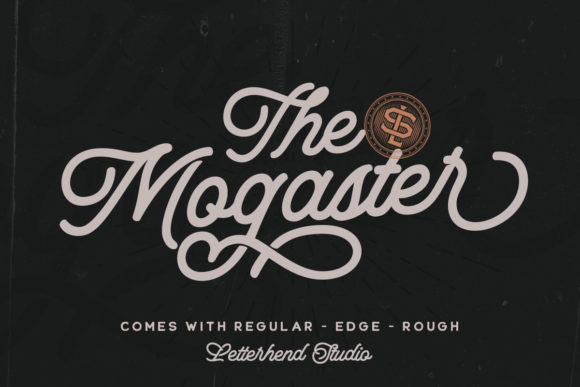
The Mogaster Font: Elevate Your Designs with Elegance and Sophistication
The Mogaster Font is a stunning, handcrafted typeface that exudes elegance and sophistication. Its unique, flowing script is perfect for designs that require a personal touch, such as wedding invitations, thank you cards, logos, and more. In this article, we’ll dive into the world of The Mogaster Font, exploring its features, uses, and benefits, as well as providing tips on how to make the most of this beautiful font.
What is The Mogaster Font?
The Mogaster Font is a carefully crafted, handwritten font that boasts a distinctive, elegant style. Its flowing curves and refined lines make it an excellent choice for designs that demand a high level of sophistication. Whether you’re looking to create stunning wedding invitations, stylish logos, or heartfelt greeting cards, The Mogaster Font is the perfect tool to help you achieve your design goals.
Key Features of The Mogaster Font
- Unique and Elegant Design: The Mogaster Font features a one-of-a-kind, handcrafted design that sets it apart from other fonts.
- Handwritten Style: The font’s handwritten style gives it a personal, organic feel that’s perfect for designs that require a touch of warmth and elegance.
- Versatile: The Mogaster Font is highly versatile and can be used for a wide range of designs, from wedding invitations to logos, greeting cards, and more.
- Easy to Read: Despite its elegant, cursive style, The Mogaster Font is remarkably easy to read, making it perfect for body text and headings.
Uses of The Mogaster Font
The Mogaster Font is an incredibly versatile typeface that can be used for a wide range of designs. Here are some of the most popular uses for this stunning font:
- Wedding Invitations: The Mogaster Font is an excellent choice for wedding invitations, adding a touch of elegance and sophistication to your special day.
- Thank You Cards: Express your gratitude in style with The Mogaster Font, perfect for thank you cards and other correspondence.
- Logos: Create a lasting impression with The Mogaster Font, ideal for logos, branding, and corporate identity.
- Greeting Cards: Add a personal touch to your greeting cards, whether it’s for a birthday, anniversary, or holiday.
- Social Media Graphics: Elevate your social media presence with The Mogaster Font, perfect for creating stunning graphics and posts.
Benefits of Using The Mogaster Font
The Mogaster Font offers a range of benefits that make it an excellent choice for designers and crafters. Here are just a few of the advantages of using this beautiful font:
- Instant Elegance: The Mogaster Font adds an instant touch of elegance and sophistication to your designs.
- Unique Style: The font’s unique, handcrafted style sets it apart from other fonts, ensuring your designs stand out from the crowd.
- Easy to Use: The Mogaster Font is remarkably easy to use, even for those with limited design experience.
- Highly Versatile: The font’s versatility means you can use it for a wide range of designs, from wedding invitations to logos and more.
Tips for Using The Mogaster Font
To get the most out of The Mogaster Font, here are a few tips to keep in mind:
- Pair with Simple Backgrounds: The Mogaster Font looks stunning when paired with simple backgrounds, allowing the font to take center stage.
- Experiment with Colors: Don’t be afraid to experiment with different colors and textures to add depth and interest to your designs.
- Use for Headings and Body Text: The Mogaster Font is suitable for both headings and body text, making it a great choice for a wide range of designs.
- Don’t Overuse: While The Mogaster Font is stunning, it’s best to use it sparingly to avoid overwhelming your designs.
The Mogaster Font is a truly unique and elegant handwritten font that’s perfect for designs that require a personal touch. Its versatility, ease of use, and stunning design make it an excellent choice for a wide range of projects, from wedding invitations to logos and more. With its instant elegance, unique style, and high level of versatility, The Mogaster Font is sure to become a favorite in your design arsenal.